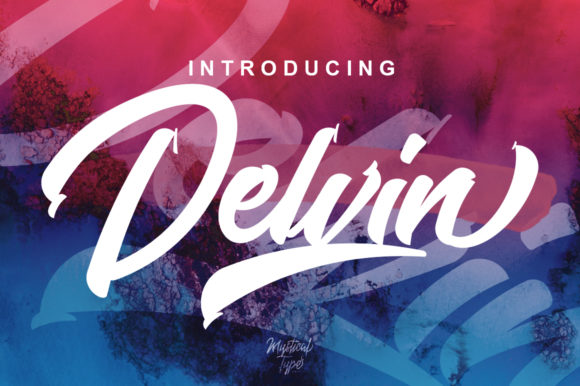
Delvin Font
Introducing Delvin Font, the captivating script font that exudes an irresistible urban flair, ready to elevate your designs to new heights of style and sophistication. Crafted with meticulous precision by the renowned font artisans at MysticalType, Delvin embodies the spirit of modern typography, seamlessly blending the raw energy of handwritten strokes with the polished elegance of contemporary design.
Embark on a creative journey with Delvin and discover a world where your words dance with effortless grace. Its authentic swashes, reminiscent of the rhythmic flow of a graffiti artist's spray can, infuse your designs with a touch of streetwise charm. Whether you're crafting a captivating logo, designing a stunning poster, or adding a touch of individuality to your social media presence, Delvin is your go-to font for making a bold statement.
Unleash the power of Delvin and watch as your designs transform into mesmerizing masterpieces. Its bold strokes and dynamic curves command attention, while its urban edge adds a touch of intrigue that sets your work apart from the ordinary. With Delvin as your creative ally, you'll turn heads, spark conversations, and leave a lasting impression on all who encounter your designs.
Embrace the boundless possibilities of Delvin Font and let its captivating allure ignite your imagination. It's the perfect choice for designers, artists, bloggers, and anyone seeking to add a touch of urban sophistication to their work. Download Delvin today and embark on a creative adventure that will redefine your design aesthetic forever.